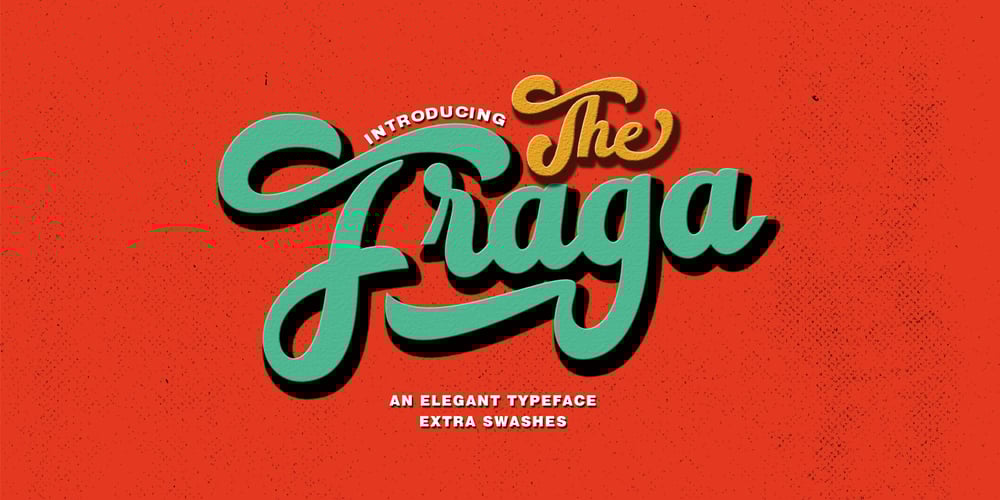
The Fraga Script Font Family was designed by Teuku Fahruddin and published by Typehill Studio. The Fraga Script contains 2 styles and family package options. The Fraga Script is Retro inspired style and combination with hand lettering style.The Fraga Script has many alternative swash and ligatures character and have opentype features like a stylistic alternative, stylistic set, ligature and swash so you can mix and match like a you want. The Fraga Script came with open type features such stylistic alternates, stylistic sets and ligatures good for logotype, posters, badges, book covers, tshirt design, handwritten quotes, product packaging, header, poster, merchandise, social media and greeting cards. To enable the OpenType Stylistic alternates, you need a program that supports OpenType features such as Adobe Illustrator CS, Adobe Indesign & CorelDraw X6-X7, Microsoft Word 2010 or later versions. How to access all alternative characters, using Windows Character Map with Photoshop: https://www.youtube.com/watch?v=Go9vacoYmBw How to access all alternative characters using Adobe Illustrator: https://www.youtube.com/watch?v=XzwjMkbB-wQ The Fraga Script is coded with PUA Unicode, which allows full access to all the extra characters without having special designing software. Mac users can use Font Book , and Windows users can use Character Map to view and copy any of the extra characters to paste into your favourite text editor/app. Thank you for your visit.